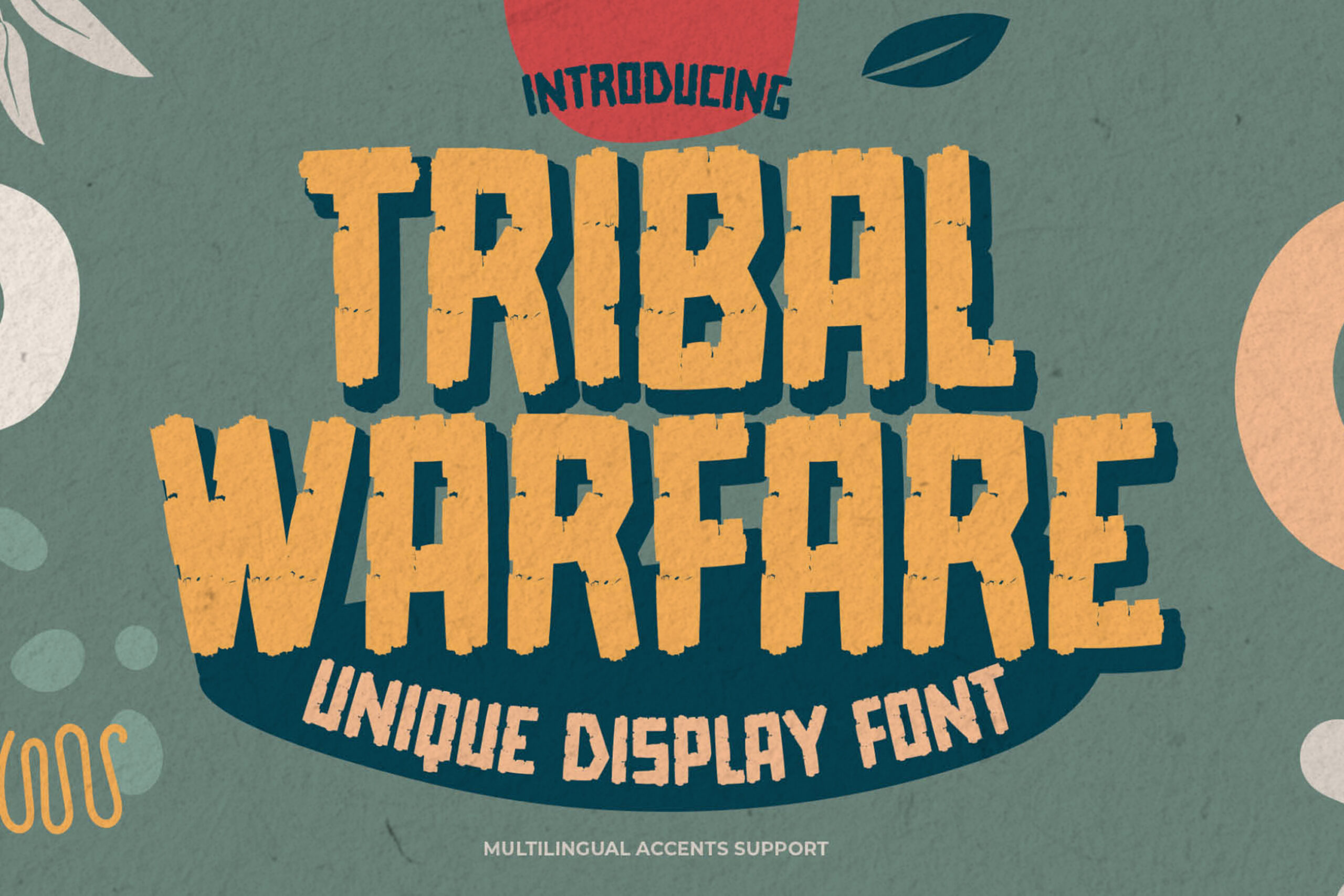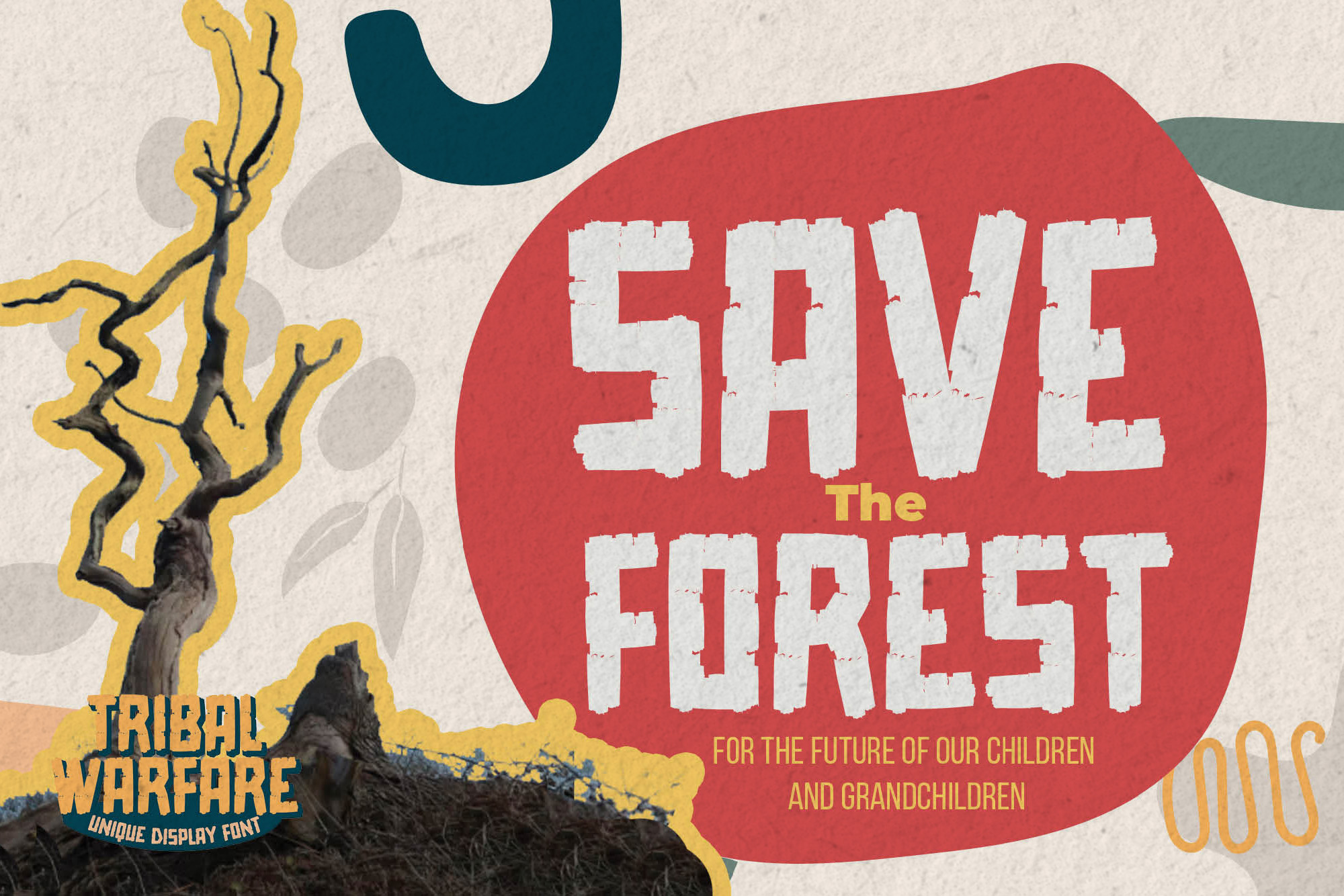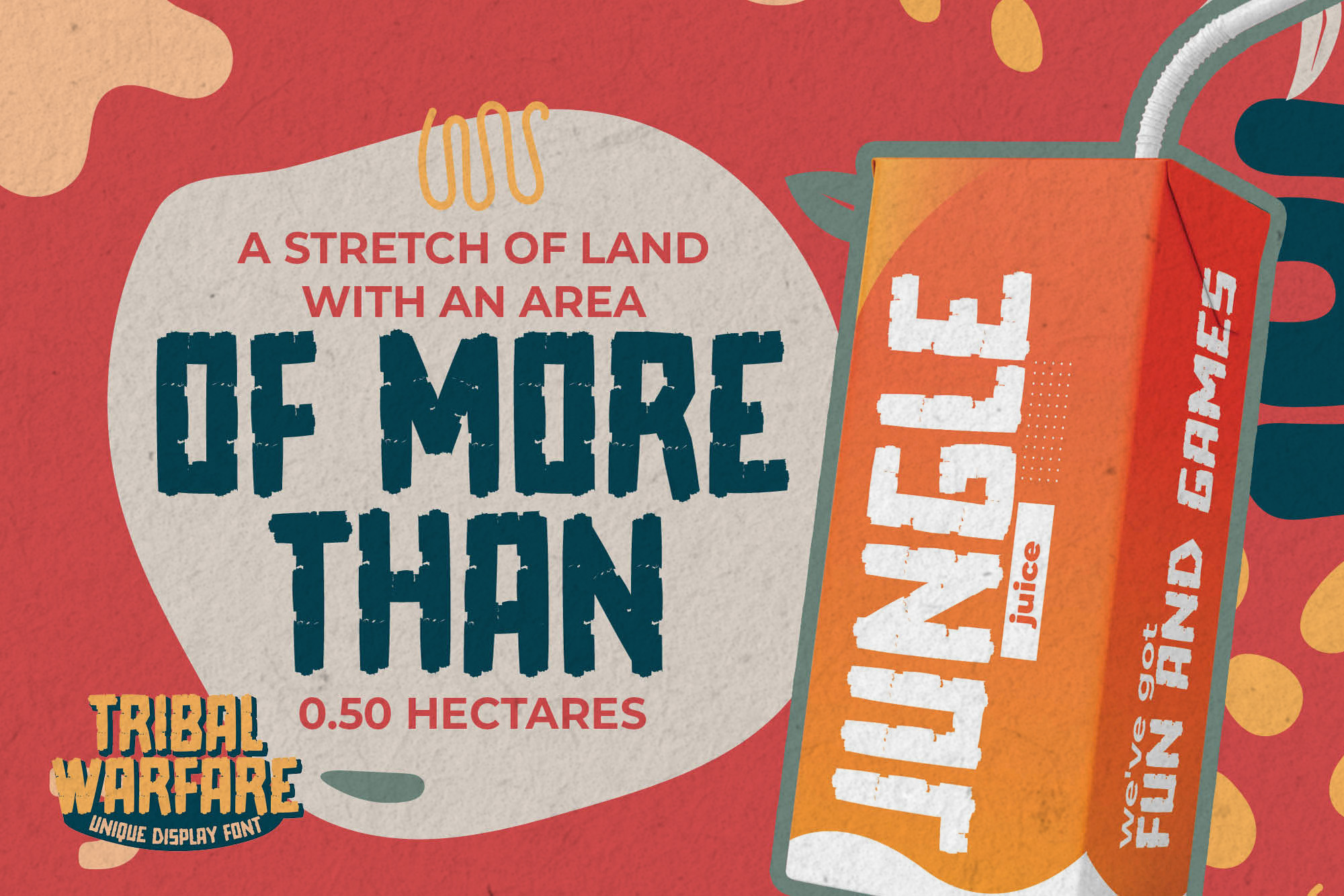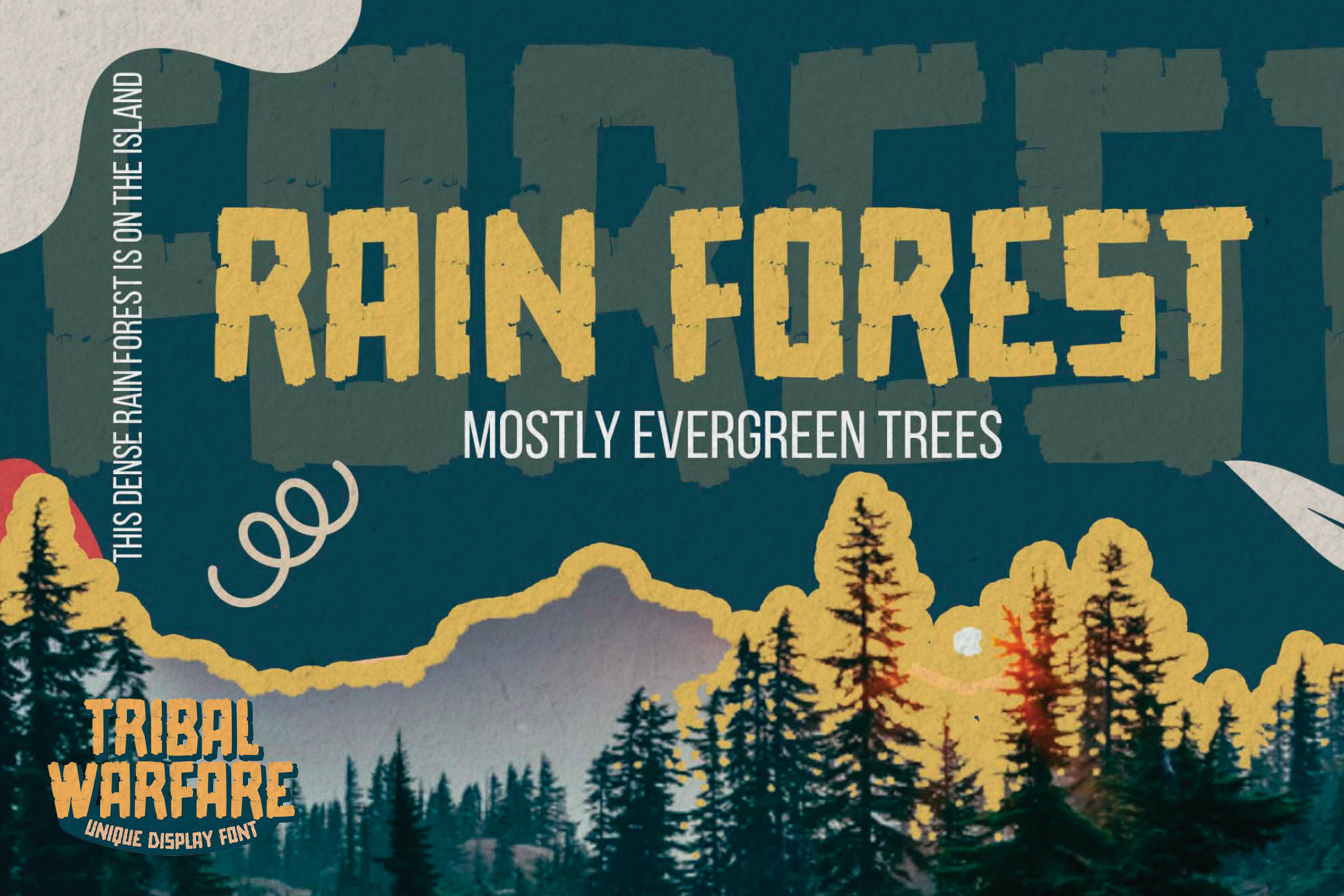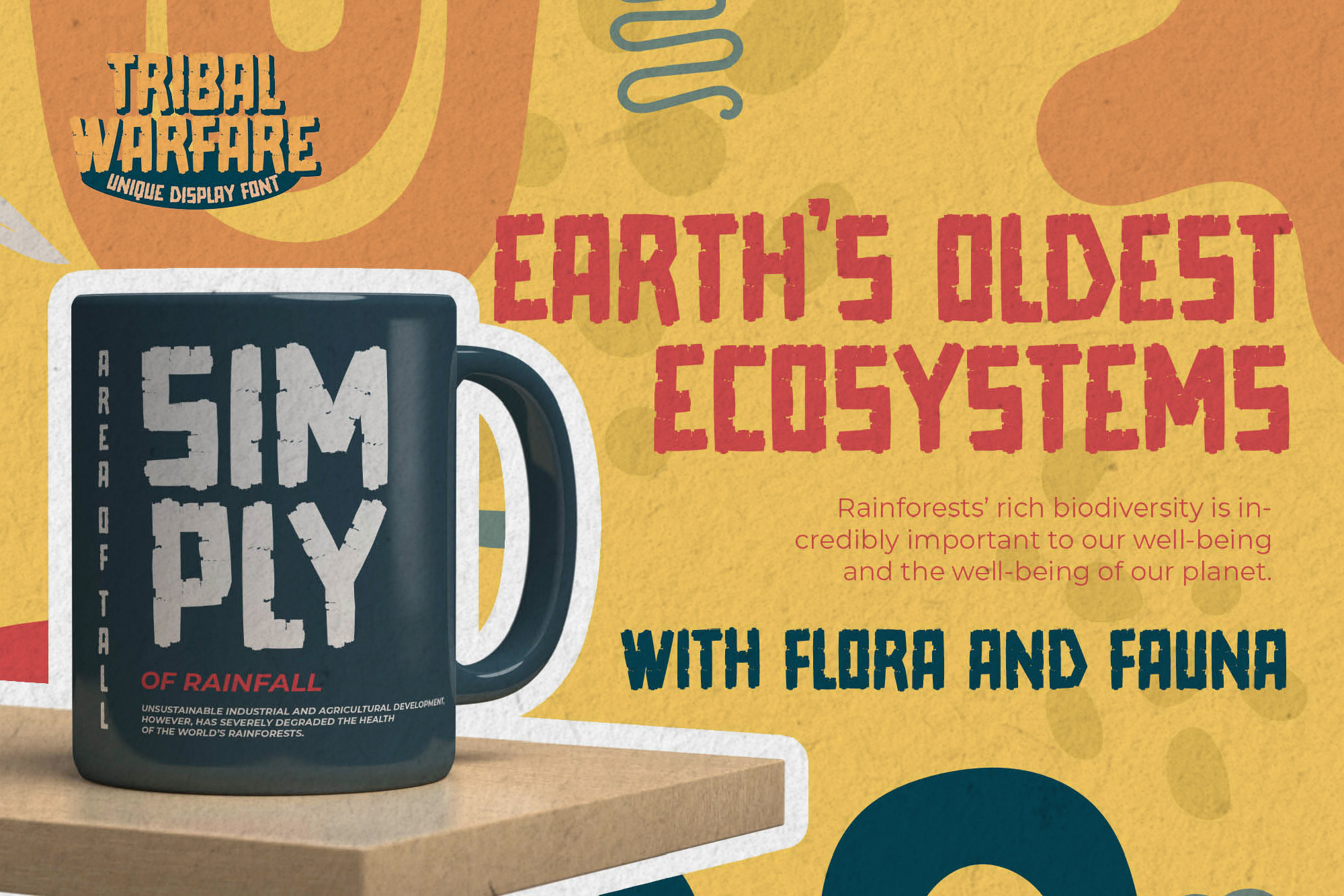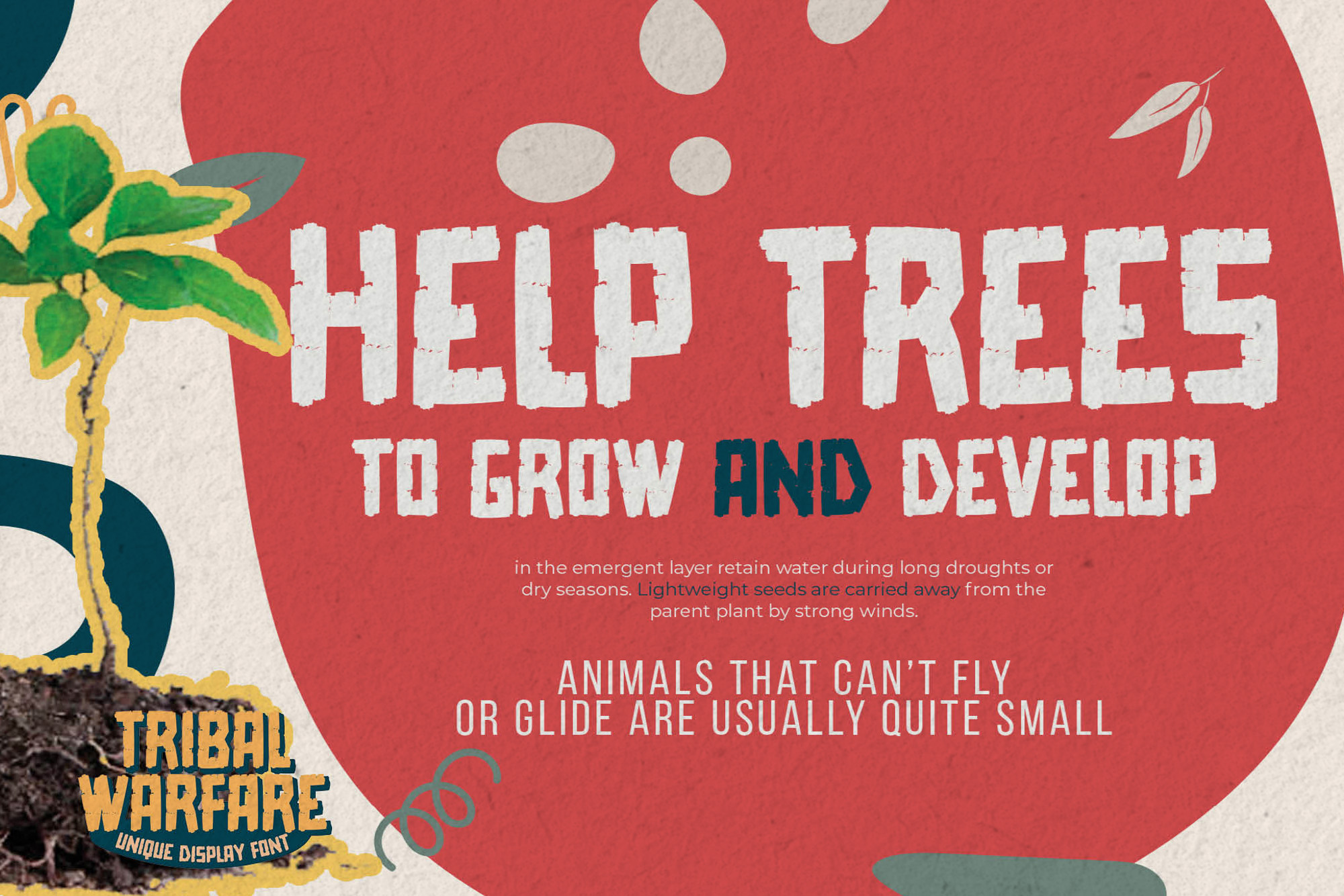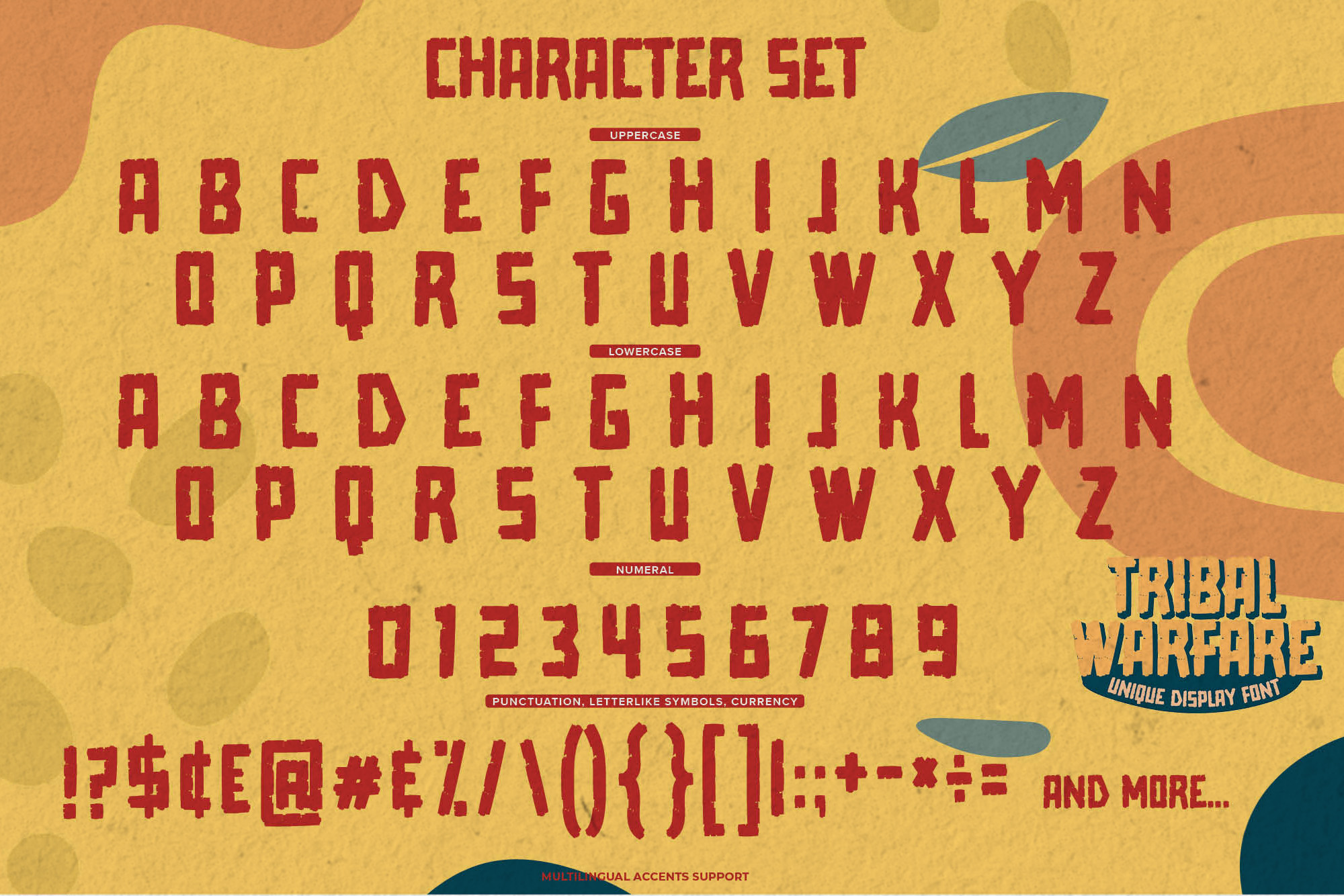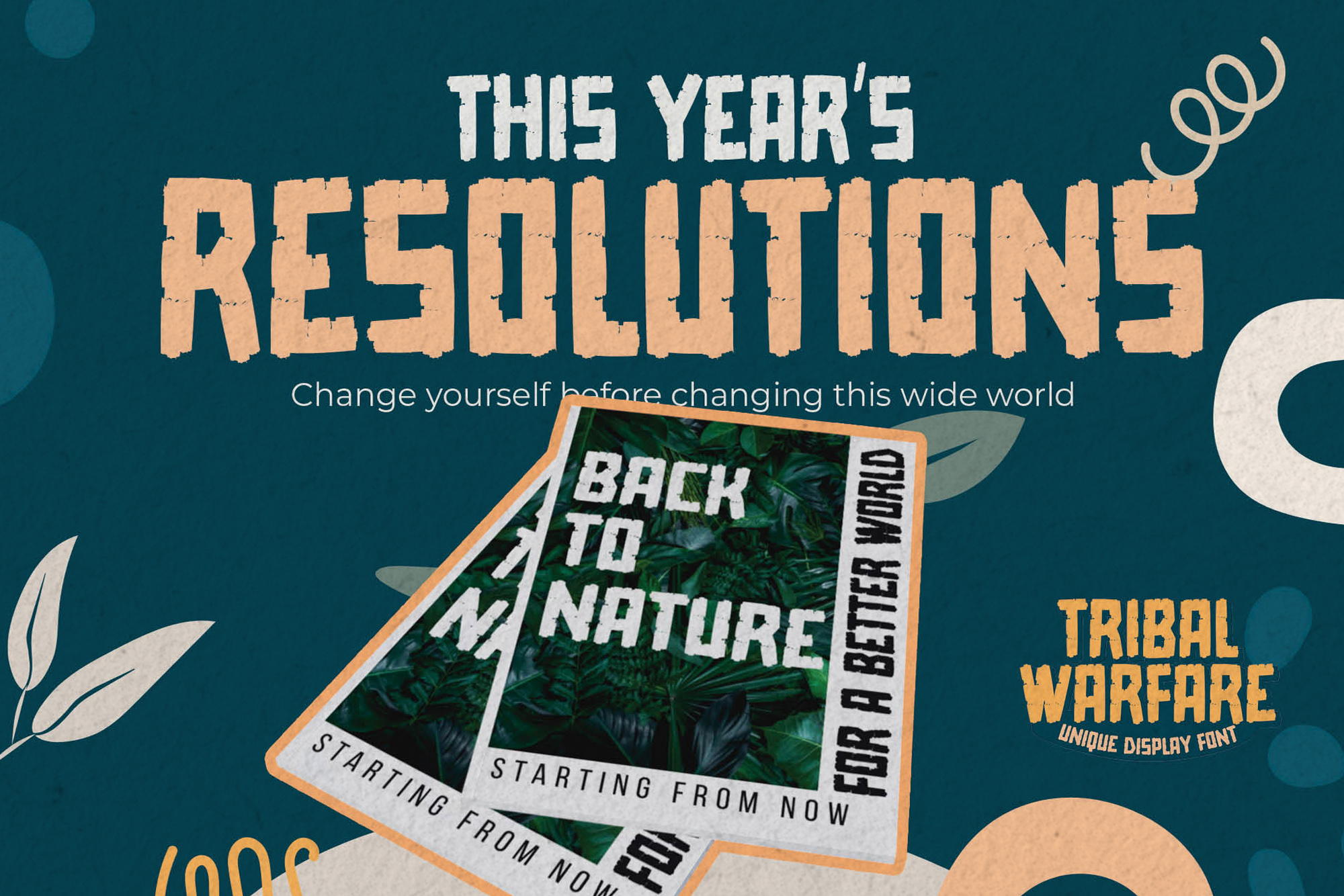
TRIBAL WARFARE – Unique Display Font, modern style and dramatic movement that is written casually and quickly.
The best for labels,poster,project , designs look modern, authentic and unique. It’s perfect for labels, quotes, posters, DIY projects, branding, packaging, greeting cards, websites, photography overlays, signs, scrapbooking, tags and so much more! That is why TRIBAL WARFARE has a textured, and unique characteristic more natural look.